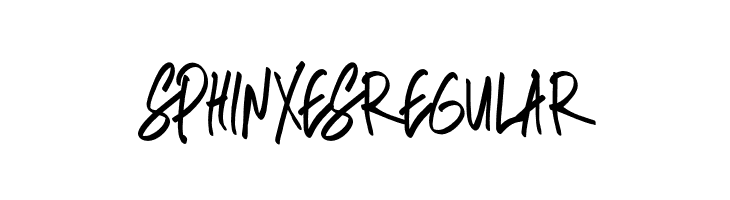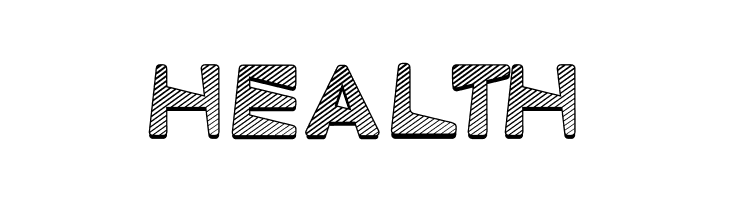
A bold, mechanical font with a pixelated, gear-like design.
A pixelated, blocky font with a retro digital aesthetic.
A bold, modern font with clean lines and strong visual impact.
A cursive, handwritten-style font with elegant, flowing characters.
Bold, geometric font with a shadow effect for a 3D appearance.
A modern, italic font with medium weight and clean lines.
A sleek, thin italic font with a modern and dynamic style.
A sleek, modern italic font with smooth, slanted letterforms and rounded edges.
A playful handwritten font with smooth, flowing lines and a casual style.
A bold, modern font with a unique horizontal line gradient effect.